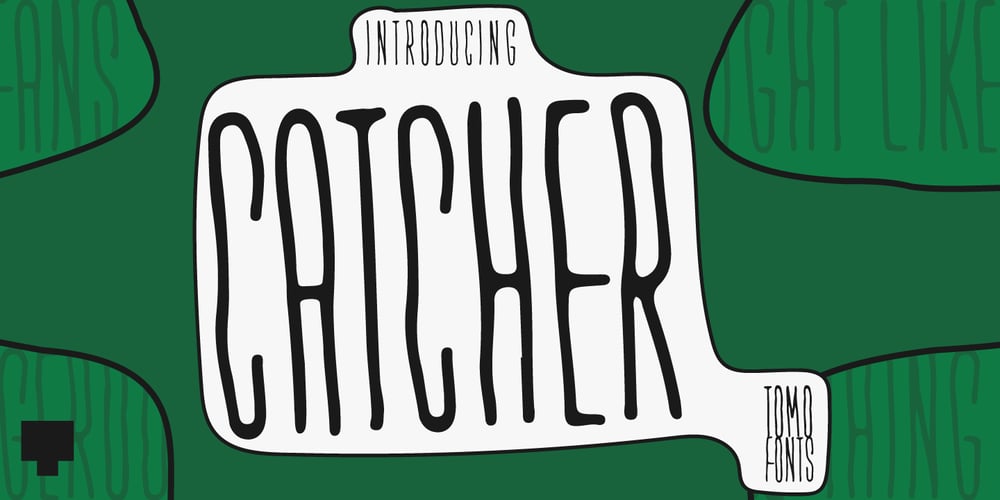
TOMO Catcher
TOMO Catcher font
TOMO Catcher Font Family was designed by TOMO Fonts and published by TOMO Fonts. TOMO Catcher contains 1 styles and family package options. TOMO Catcher is a sweet and friendly handwritten font. The extra narrow style makes it incredibly fitting to a large pool of designs. The only limit is your imagination!